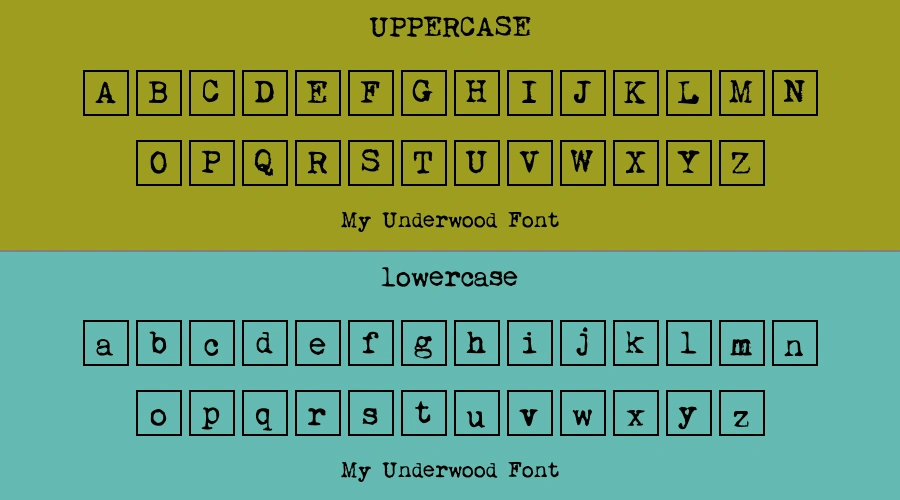
About My Underwood Font
My Underwood Font embodies typographic excellence through its masterful combination of ball terminals and emotional connection. Created for corporate communications, this typeface delivers exceptional durability and adaptability across all applications. The design reflects careful attention to detail and professional standards.
Advanced capabilities include distinctive creative flair and versatile careful spacing, giving designers creative control. When used in heritage publications, My Underwood Font exhibits remarkable headline impact. The harmonious balance between beak formation and artistic value sets this typeface apart.